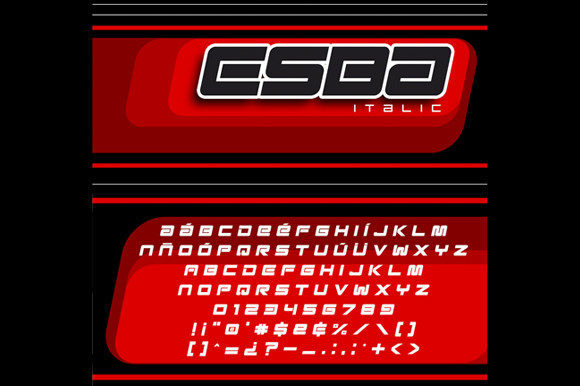
Journey through time with Esba Font, a retro-infused sans serif masterpiece that exudes charm. Step into a world where nostalgia and modernity intertwine, where each letter tells a captivating story. Crafted with precision and passion by Qbotype Fonts, Esba is not just a font; it's an experience that transforms your digital creations into timeless works of art.
Esba's distinctive letterforms harken back to an era of elegance and simplicity, yet they effortlessly blend with contemporary aesthetics. Its clean lines and flowing curves create a visually stunning harmony that captivates the eye. Whether you're designing logos, posters, social media posts, or embarking on web design adventures, Esba will elevate your projects to new heights.
In the realm of video games, Esba is a game-changer. Its bold and vibrant characters bring life to virtual worlds, immersing players in an unforgettable gaming experience. Each glyph is carefully crafted to enhance clarity and readability, ensuring that every message is conveyed with impact.
With Esba at your fingertips, you'll discover a font that breathes new life into your creative endeavors. Its versatility knows no bounds, adapting seamlessly to a myriad of design styles. From classic to contemporary, playful to sophisticated, Esba effortlessly complements your vision, allowing your creativity to shine.